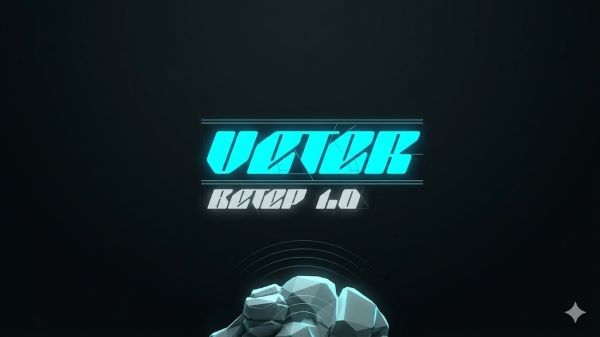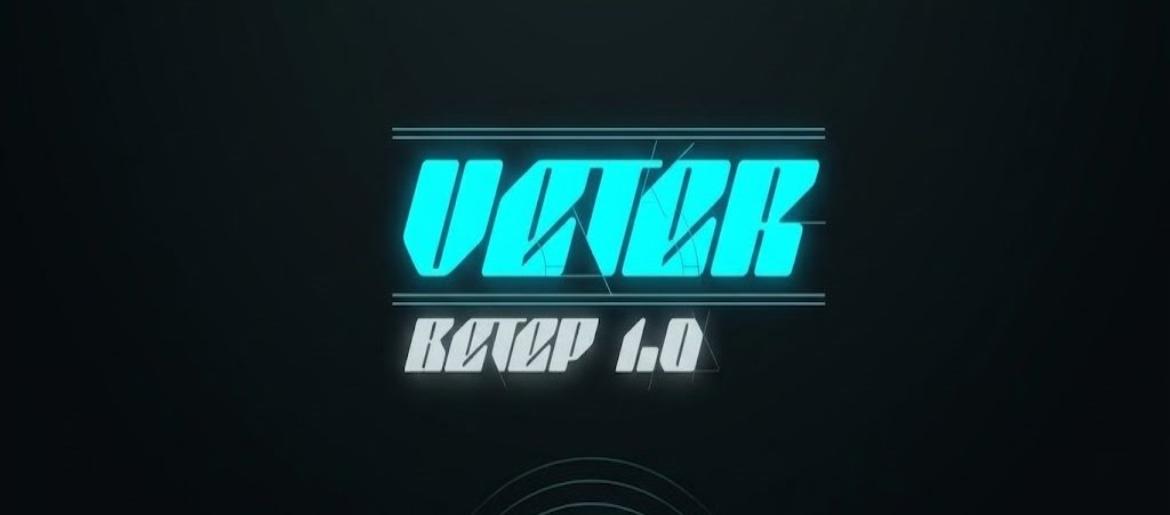
Veter Font
Veter by Tim Kasimoff is a bold, futurist display typeface that moves with the kind of kinetic energy its name implies — the Russian word for “wind.” Its heavy weight and forward-leaning forms make it a natural choice for headlines, posters, and any composition that demands visual momentum. Rooted in a futurist aesthetic, Veter brings raw graphic force to branding and editorial design alike, free for personal and commercial use.